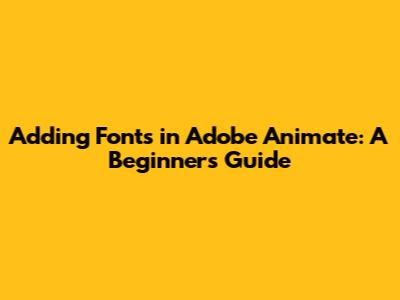
Hey there, fellow animators! Ever wondered how to add fonts in Adobe Animate and give your animations that extra oomph? Well, you've come to the right place. Adding the right font can make or break your animation, setting the tone and style perfectly. Whether you're a seasoned pro or just starting out, understanding how to handle fonts in Animate is super important. In this guide, we'll dive deep into the process, covering everything from importing fonts to troubleshooting common issues. So, grab your coffee, get comfy, and let's get those fonts flowing!
Understanding Font Types in Adobe Animate
Before we jump into the how-to, let's chat about the different font types you'll encounter in Adobe Animate. Knowing these will help you choose the right font for your project and avoid any compatibility headaches. You see, guys, Animate supports a bunch of font formats, but the most common ones you'll be working with are TrueType (.ttf) and OpenType (.otf). These formats are generally compatible across different operating systems, which makes your life easier. TrueType fonts are known for their simplicity and are a great all-rounder, while OpenType fonts offer more advanced features like ligatures and alternate characters, perfect for adding a touch of sophistication to your work. Then there are PostScript Type 1 fonts; although older, they are still supported but can sometimes cause issues. And, of course, there are system fonts, which are fonts already installed on your computer. When you open Animate, it automatically recognizes these, making them easily accessible. Choosing the right font type depends on your specific needs. For general use, TrueType and OpenType fonts are your best bets. If you need special characters or advanced typography features, then OpenType is your go-to. System fonts are great for quick projects or when you want a familiar look. So, yeah, guys, keep these formats in mind when you're looking for fonts. It'll save you a lot of time and potential frustration down the road. Alright, with that basic knowledge of fonts, let's explore some methods to get them into Adobe Animate!
Method 1: Using System Fonts in Adobe Animate
Alright, let's start with the easiest method: using system fonts. Using system fonts means you're using fonts that are already installed on your computer. It's the simplest way to get text into your animations, and it's perfect for quick projects or when you want to use a familiar font. So, how do you do it? Easy peasy! First off, fire up Adobe Animate and create a new project or open an existing one. Next, grab the Text Tool (represented by the letter "T" in the toolbar). Click where you want to add your text on the stage. Then, check out the Properties panel. There, you'll see a dropdown menu labeled "Font Family." Click on it, and voilà! You'll see a list of all the fonts installed on your system. Scroll through the list and select the font you want to use. You can also change the font size, style (bold, italic), and color in the Properties panel. Type your text, and you're good to go! The cool thing about using system fonts is that they're automatically available. You don't need to import anything; Animate recognizes them right away. This can save you a ton of time, especially when you're experimenting with different looks. However, there's a small catch: If someone opens your animation on a computer that doesn't have the same font installed, the text might look different. Adobe Animate will substitute it with a default font. So, when working with system fonts, keep this in mind, and if font consistency is super important to your project, you might want to look at the next methods.
Method 2: Importing Fonts for Adobe Animate
Alright, let's say you want to use a font that's not on your system. Importing fonts is the way to go. This ensures your chosen font appears correctly, no matter where your animation is viewed. It's a bit more involved than using system fonts, but trust me, it's worth it for that perfect look. First, you need to have the font files (.ttf or .otf) ready. You can download these from various websites like Google Fonts, DaFont, or Creative Market. Make sure you're legally allowed to use the fonts, though! Once you have your font files, open Adobe Animate and go to File > Import > Import to Library. Navigate to where you saved your font files and select them. Animate imports the font files into your Library panel. You won't see the font right away on the stage; instead, it's stored within the library, ready for use. Now, use the Text Tool as before. When you go to the Properties panel and look at the Font Family dropdown, you might not see your imported font immediately. Don't panic! Select a text box or create a new one, then in the Properties panel, click on the Character section, and you'll find the font. Sometimes, you might need to restart Animate to have the new font visible in the font family list. Once you select the font, start typing, and voila! Your imported font should appear. The advantage of importing fonts is clear: you control the font and ensure your audience sees the animation as intended. But remember, if you share the .fla file, you might need to also share the font files or embed them in your animation, which we will explore next. This process is the key to maintaining a consistent look and feel across your projects.
Method 3: Embedding Fonts in Adobe Animate
Okay, guys, let's dive into embedding fonts in Adobe Animate. This is a super important step if you want to share your animations and ensure that everyone sees your chosen font, even if they don't have it installed on their system. Embedding fonts essentially bundles the font data into your animation file. This means the font will travel with your project, no matter where it goes. Here's how to do it. First, create your text using your desired font. Ensure the text is selected, head over to the Properties panel, and in the Character section, you'll find an option called "Embed." Click the "Embed" button. This action opens the Font Embedding dialog box, which gives you several options. In the Font Embedding dialog, you have a few essential choices. The "All Glyphs" option includes all the characters of the font in your animation, ensuring that every letter, number, and symbol is available. This option is great but increases the file size. For smaller file sizes, you can choose "Only used characters" or "Specific characters." The "Only used characters" option is usually a good compromise, as it only includes the characters you actually use in your text. "Specific characters" let you choose the exact characters to include, ideal for specialized uses. Another setting you may encounter is the "Anti-alias" option, influencing how the font looks on the screen. Experiment to get the best visual appearance. After making your selections in the Font Embedding dialog box, click "OK." The font is now embedded in your animation. This will increase the file size a little, but the text will display correctly on any computer. When you publish your animation (File > Publish), the embedded font information is included in the output files (like .swf or .html). This is the key to sharing your work reliably. Remember, font embedding is a crucial step for projects you want to distribute. This way, your audience will enjoy your animation precisely as you designed it, with the right fonts!
Troubleshooting Common Font Issues in Adobe Animate
Even with the best instructions, you might encounter some font issues in Adobe Animate. No worries, guys! Let's troubleshoot these common problems and get you back on track. One of the most common issues is the missing font problem. This usually happens when you don't embed your fonts, and someone opens your animation on a system without the font installed. Animate will substitute it with a default font, which can mess up your design. The fix? Make sure you embed your fonts, like we mentioned earlier. Another problem is the appearance of jagged or blurry text. This can be caused by the font rendering settings. Try adjusting the anti-aliasing settings in the Properties panel or the Font Embedding dialog box to improve text quality. Also, double-check your text size and scaling; sometimes, a small size or improper scaling can make text appear blurry. If you're importing fonts, sometimes they might not show up in the font list right away. Try restarting Adobe Animate after importing, and also check your font file format. Animate primarily supports .ttf and .otf fonts, so ensure your font files are in these formats. Sometimes, your text might not appear as you expect after publishing your animation. This can happen if the font doesn't support a specific character or glyph. Go back and check the font, ensuring it has all the characters you need. If you are having issues with the text alignment, make sure the text box size is correct. Adjusting the text box or using the proper alignment options in the Properties panel can solve these issues. Finally, file size! When you embed all glyphs, your file size can become huge. Try embedding only used characters or specific characters to reduce the file size while maintaining the font integrity. Troubleshooting can seem daunting, but these steps are usually enough to solve most problems. Take it step-by-step, and you'll become a font pro in no time.
Optimizing Your Font Usage in Adobe Animate
Alright, we have covered all the basic steps, but let's talk about optimizing your font usage in Adobe Animate. Just because you can use any font doesn't mean you should use them all at once. Strategic font usage can greatly improve your animation. Consider the overall style and theme of your animation. Choose fonts that align with the mood you are trying to create. A playful animation might suit a fun, whimsical font, while a serious topic might call for a clean, professional one. Less is more, guys! Stick to a few fonts throughout your project for a consistent look. Overusing different fonts can make your animation look messy and unprofessional. Use font styles to add variety. Instead of using different fonts, try using bold, italics, or varying sizes. This way, you maintain consistency. Pay attention to readability, choosing fonts that are easy to read, especially in motion. Avoid fonts that are too ornate or difficult to decipher. Font size is also important, so size your text appropriately. Ensure your text is large enough to be easily seen and read on any screen. Experiment with colors and effects. Use color and effects, such as shadows and outlines, to make your text pop, but avoid excessive effects, as they can distract from your message. Keep file size in mind. Remember that embedding fonts can increase your file size, especially if you include all glyphs. Optimize your text by embedding only the required characters or using system fonts when possible. Test your animation on different devices to make sure the text looks good across various screen sizes and resolutions. A little planning goes a long way when choosing fonts. By following these tips, you'll be well on your way to creating stunning animations with beautiful typography. So, yeah, guys, remember that great font choices can truly elevate your work!
Conclusion: Mastering Fonts in Adobe Animate
So, there you have it, guys! We've covered the ins and outs of how to add fonts in Adobe Animate. You now know how to use system fonts, import your own, and, most importantly, embed them to ensure your animations look great everywhere. Remember that choosing and using the right fonts can significantly enhance your animations. From the fundamentals to troubleshooting and optimization, you now have the tools and knowledge to create visually appealing and engaging content. So go forth, experiment, and have fun with fonts. Each project is an opportunity to learn, so embrace the process and keep creating awesome animations. Don't be afraid to try new things and push your creative boundaries. Thanks for joining me on this font journey. Now, get out there and animate with confidence!